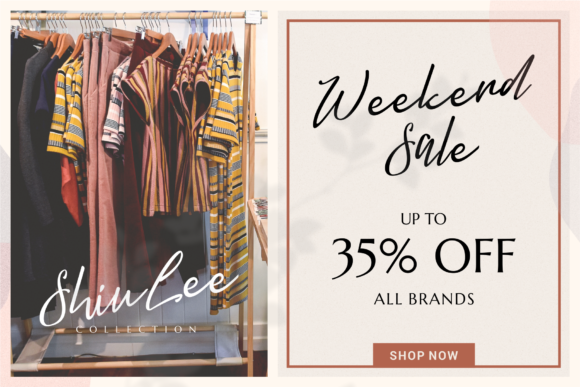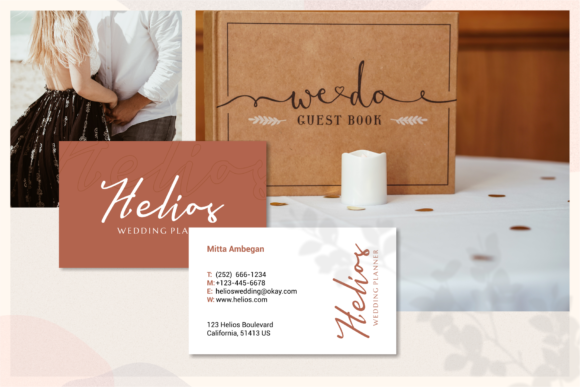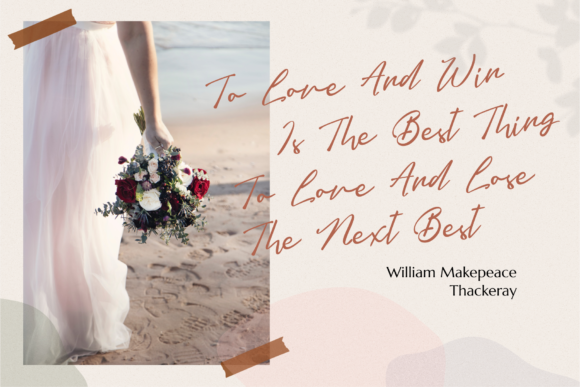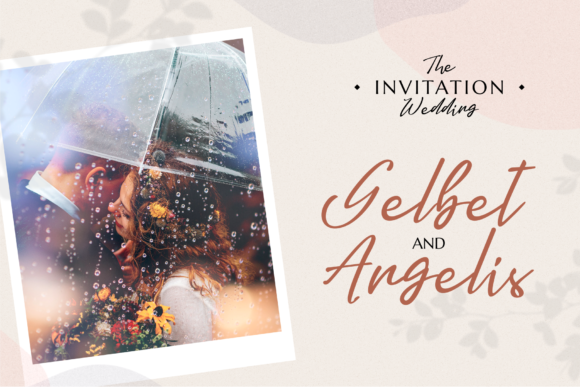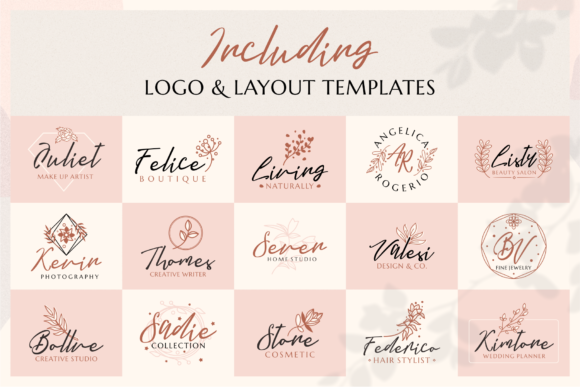
The Elusive Perfect Font: My Encounter with Bestlecio
Ah, the quest for the perfect font. We’ve all been there – stuck in the middle of a design project, pouring over font catalogs, and still, nothing seems quite right. I recall a particularly frustrating moment when a client requested a font that was “modern, elegant, and had a touch of whimsy.” Sounds simple, right? Wrong. That’s when I stumbled upon Bestlecio, a beautiful script font that has since become a staple in my design toolkit.
First Impressions: A Love Affair with Bestlecio
Bestlecio is a stunning script font characterized by its flowing curves and contemporary coolness. It’s the kind of font that can elevate your designs from ordinary to extraordinary. Here’s what I love about it:
- ✨ Elegant and sophisticated, perfect for high-end branding projects
- 💫 Supports OpenType features, allowing for creative exploration
- 🎨 Versatile and adaptable, suitable for various design applications
A Few Quirks to Consider
While Bestlecio is an exceptional font, it’s not without its limitations. Here are a few things to keep in mind:
- ⚠️ May not be the best choice for very long blocks of text, as it can be a bit ornate
- 🤔 Some characters may not work well in all contexts, requiring manual adjustment
Exploring Alternatives: Similar Fonts to Bestlecio
While Bestlecio is unique, there are other fonts that share similar qualities. Here are a few alternatives to consider:
- Elaine: A more minimalist script with a sophisticated edge, ideal for luxury brands
- Lola: A playful, cursive font perfect for creative projects and children’s branding
- Canela: A high-end serif font with elegant lines, suitable for editorials and magazines
- Bramble: A whimsical, handwritten font great for more casual, friendly designs
The Story Behind Bestlecio: Designer Inspiration
The story goes that Bestlecio was created by a young designer who wanted to blend traditional calligraphy with modern digital techniques. Drawing inspiration from flowing water and organic shapes, they crafted a font that is both timeless and cutting-edge. While the details are sketchy, one thing is clear: Bestlecio has captured the hearts of designers worldwide.
| Is Bestlecio suitable for body text? | While it’s legible, Bestlecio is better suited for headings and short paragraphs due to its ornate nature. |